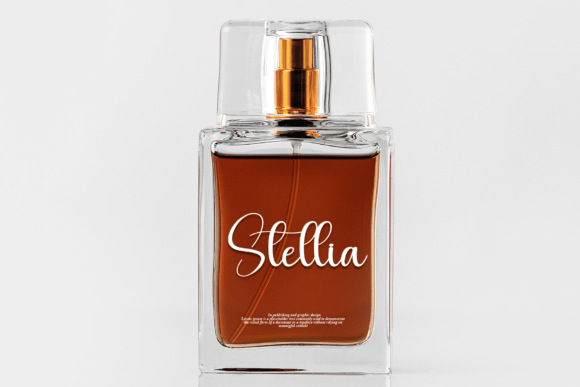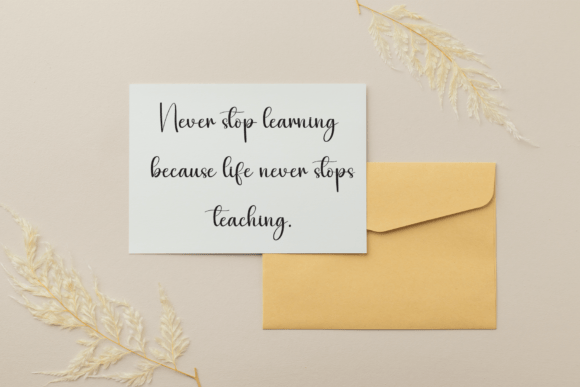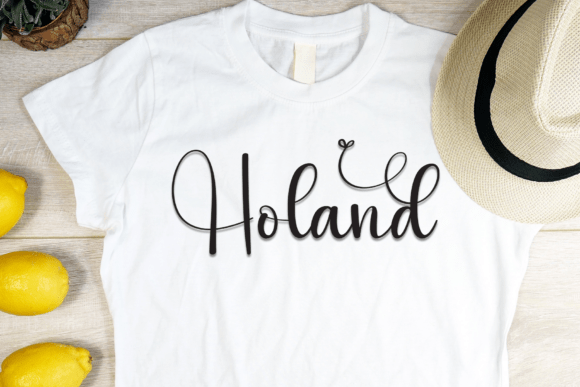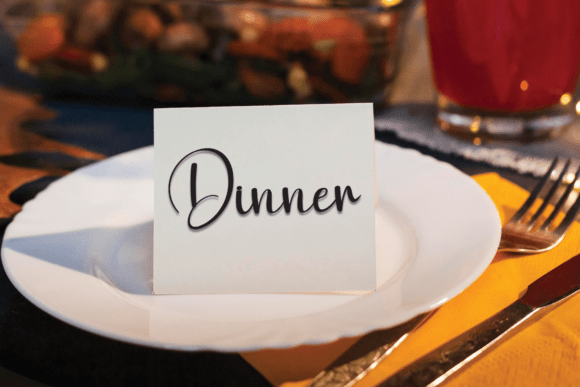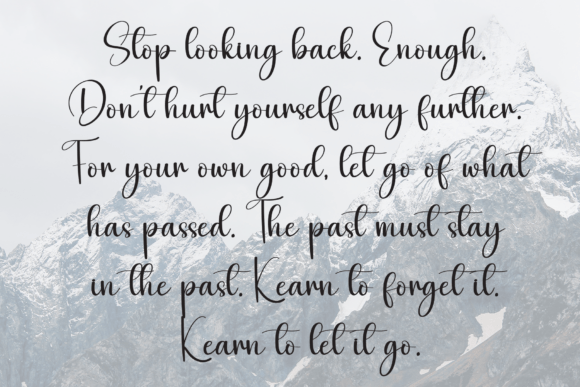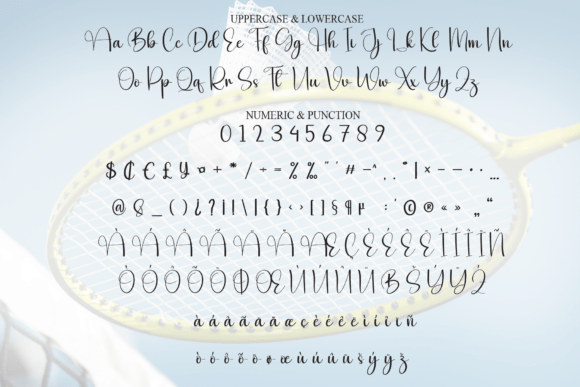
Introducing Badminton Font: The Epitome of Elegance and Versatility
In the realm of typography, few fonts manage to capture the essence of elegance and personal touch as effectively as the Badminton Font. This charming script handwritten font has been gaining attention among designers and crafters alike for its unique ability to blend natural flow with effortless elegance. Whether you’re working on a logo, wedding invitation, social media graphic, or personal branding project, Badminton Font promises to infuse your creations with a warm, heartfelt feel that’s hard to replicate with standard typefaces.
The Characteristics of Badminton Font
So, what sets Badminton Font apart from other script fonts in the market? The answer lies in its meticulously crafted design. Featuring smooth curves and varied stroke widths, this typeface mimics authentic penmanship with a stylish twist. The fluidity of the letters and the subtle variations in line thickness give the font a dynamic, organic look that’s reminiscent of handwritten text. This not only adds a personal touch to your designs but also makes them stand out in a sea of more conventional typography.
One of the key advantages of Badminton Font is its incredible versatility. This font isn’t just limited to romantic or feminine designs; it can effortlessly adapt to a wide range of design aesthetics. Whether you’re aiming for a casual, laid-back vibe or something more sophisticated and elegant, Badminton Font can help you achieve your vision. Its adaptability makes it an excellent choice for various projects, including:
- Logos: Create a memorable brand identity with a logo that exudes elegance and professionalism.
- Wedding Invitations: Add a touch of romance and sophistication to your wedding invitations and stationery.
- Social Media Graphics: Elevate your social media presence with eye-catching graphics that reflect your personal style.
- Personal Branding: Establish a strong personal brand with a unique and stylish typography that sets you apart.
Why Designers and Crafters Love Badminton Font
Designers and crafters are always on the lookout for fonts that can help them create unique and engaging designs. Badminton Font ticks all the right boxes for several reasons:
- Effortless Elegance: The font’s natural flow and elegant curves make it perfect for designs that require a touch of sophistication.
- Handmade Feel: The subtle imperfections and variations in the font give it a handmade feel that’s perfect for crafters and designers looking for a personal touch.
- Easy to Read: Despite its elegant and cursive nature, Badminton Font remains highly legible, making it suitable for both headings and body text.
Tips for Using Badminton Font Effectively
To make the most of Badminton Font, here are a few tips to keep in mind:
- Pair it with Neutrals: Badminton Font pairs beautifully with neutral backgrounds and simple textures. This allows the font’s elegance to take center stage.
- Experiment with Colors: Don’t be afraid to experiment with different colors. Soft pastels, rich jewel tones, and classic black and white can all complement the font’s charm.
- Mix and Match: Consider mixing Badminton Font with other fonts for a layered look. A bold sans-serif can create an interesting contrast with the script font.
Badminton Font is more than just a typeface; it’s a design tool that can elevate your projects with its unique blend of elegance, versatility, and personal touch. Whether you’re a designer looking to impress clients or a crafter aiming to add a professional edge to your work, this font is sure to exceed your expectations. With its smooth curves, varied stroke widths, and effortless charm, Badminton Font is poised to become a favorite in your typography arsenal. So, why settle for ordinary when you can create something truly extraordinary with Badminton Font?